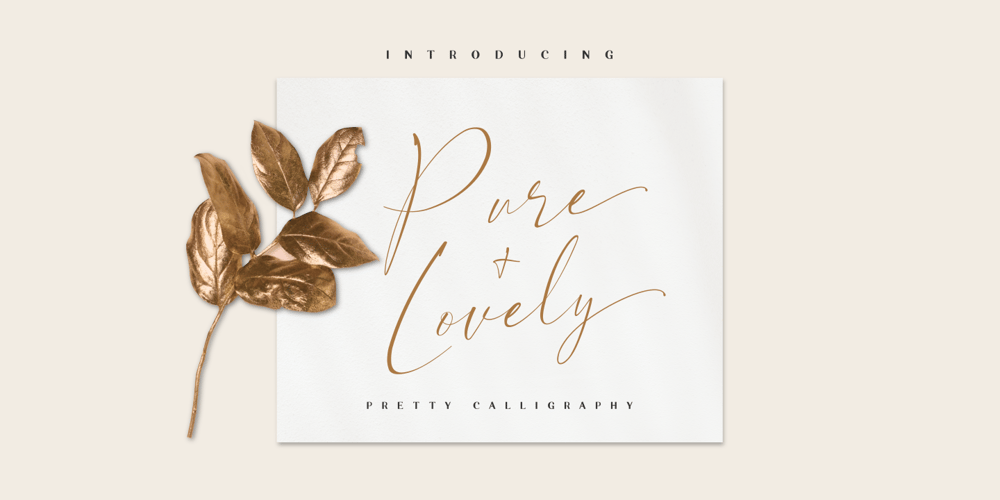
Pure and Lovely
Pure and Lovely font
Pure and Lovely Font Family was designed by Java Pep and published by Java Pep. Pure and Lovely contains 1 styles and family package options. Introducing Pure and Lovely is pretty calligraphy font, this font is inspired by an organic handwritten. Pure and Lovely font has OpenType features such as ligature, alternate, stylistic alternate 1 (SS01) for initial or beginning swash, and stylistic alternate 2 (SS02) for the terminal form or ending swash, you can customize to make more pretty and elegant looks. Let’s use this font in your project design for logo, branding, invitations, greeting card, headline, title, magazine, signature and etc.